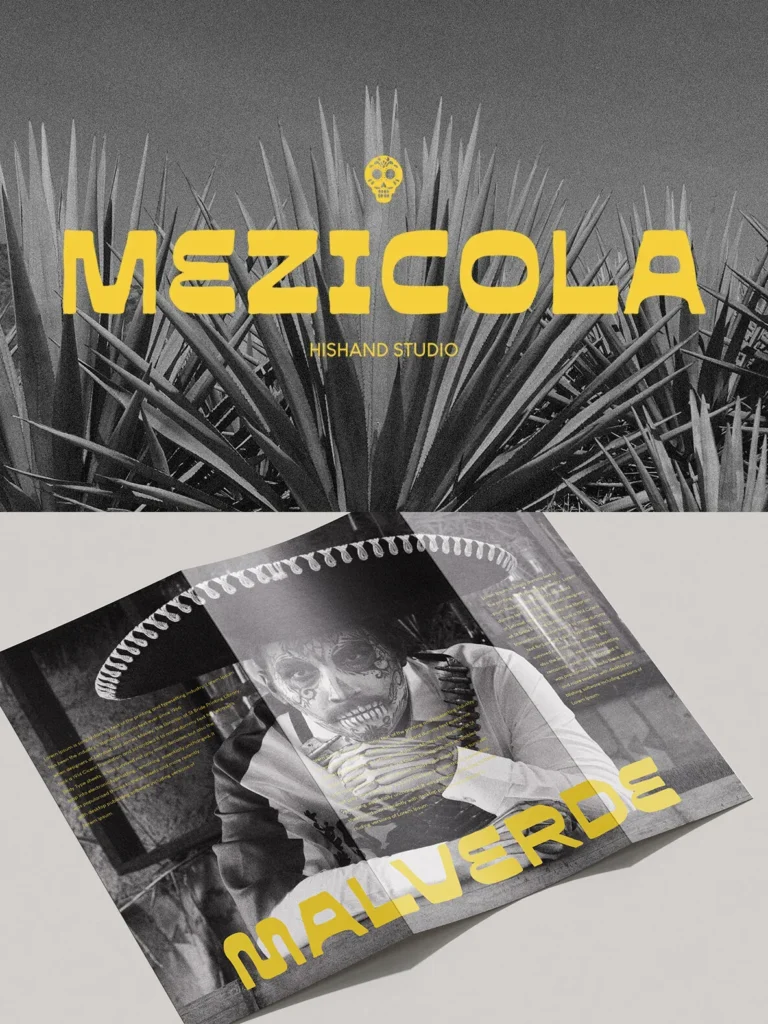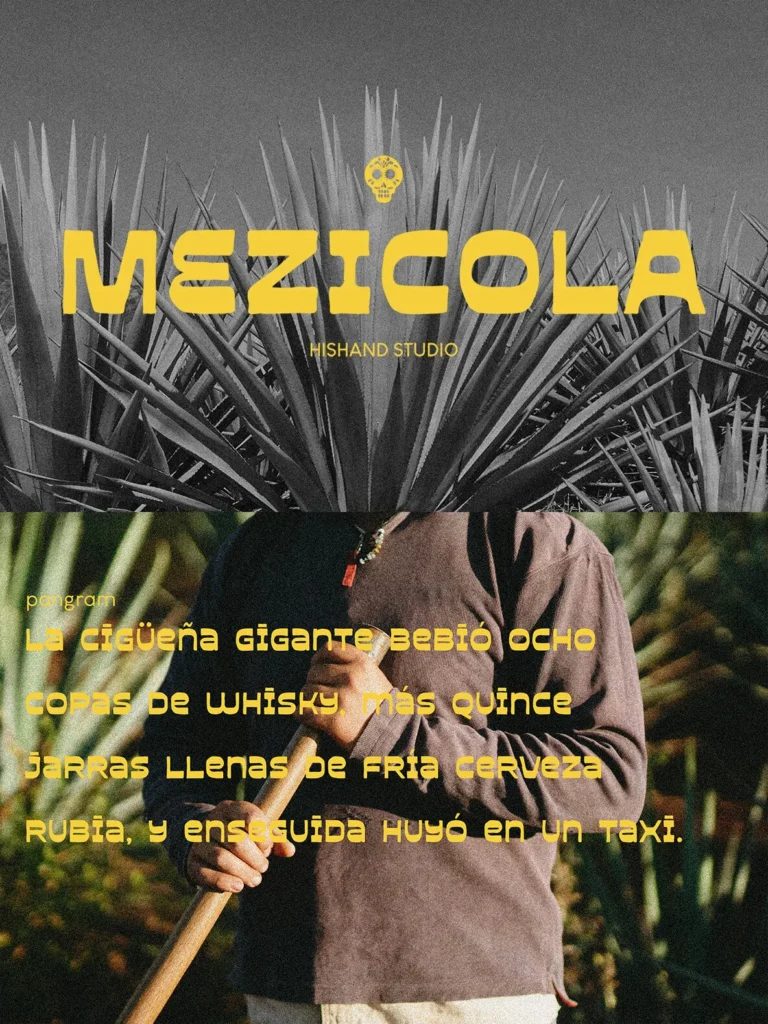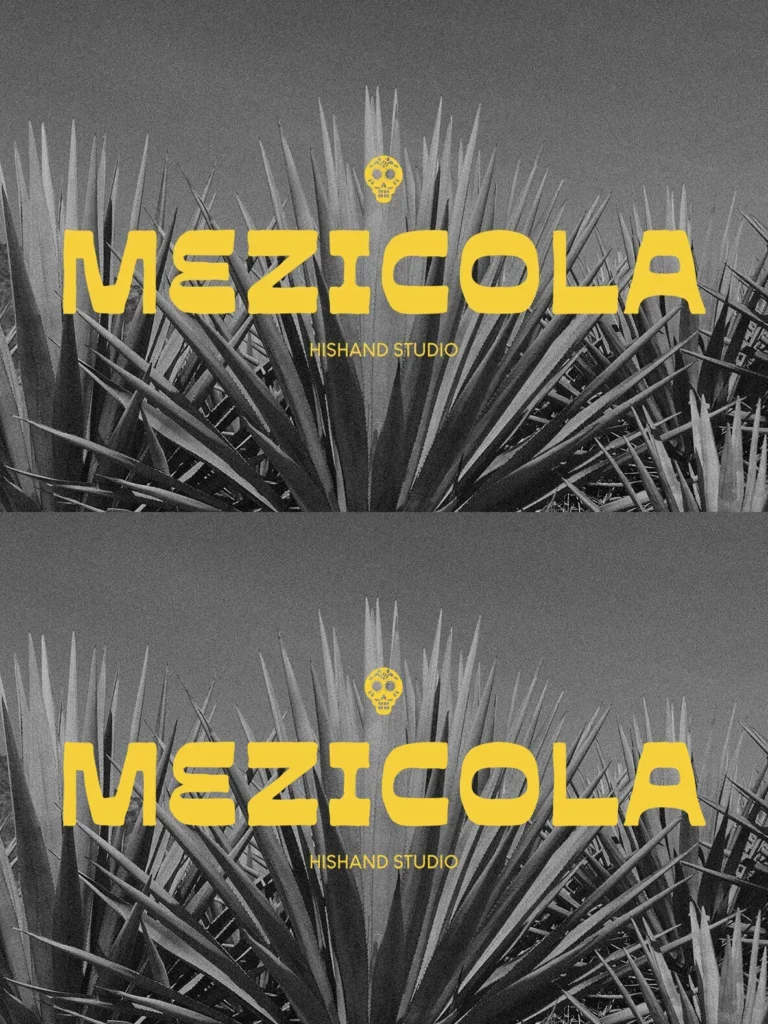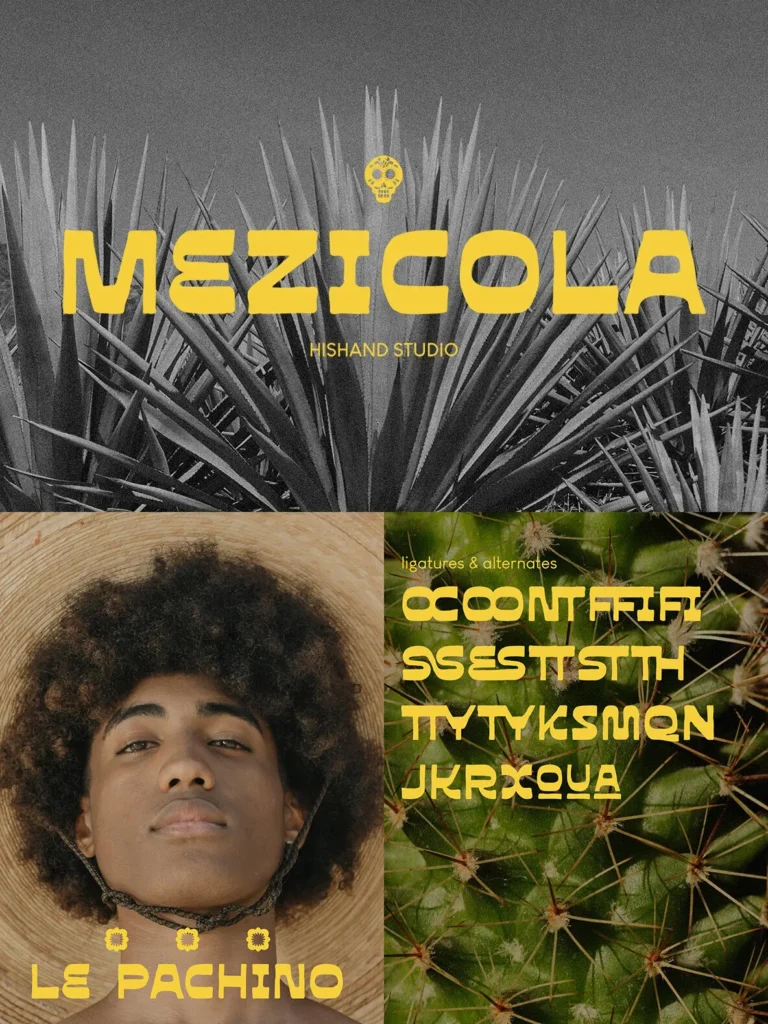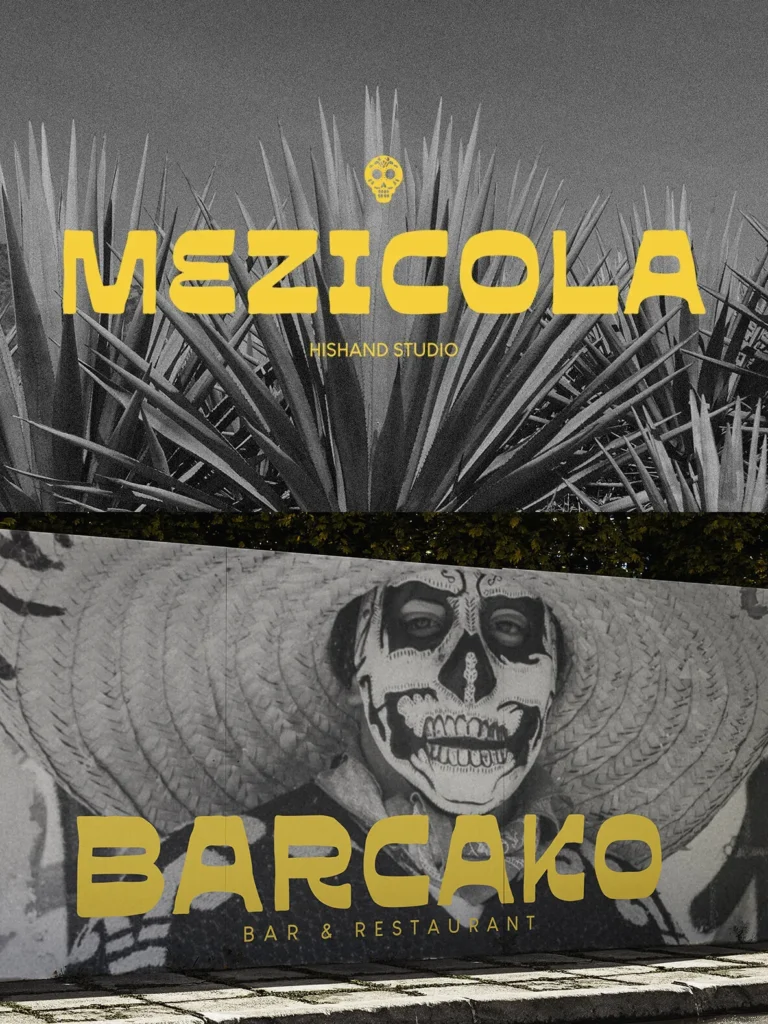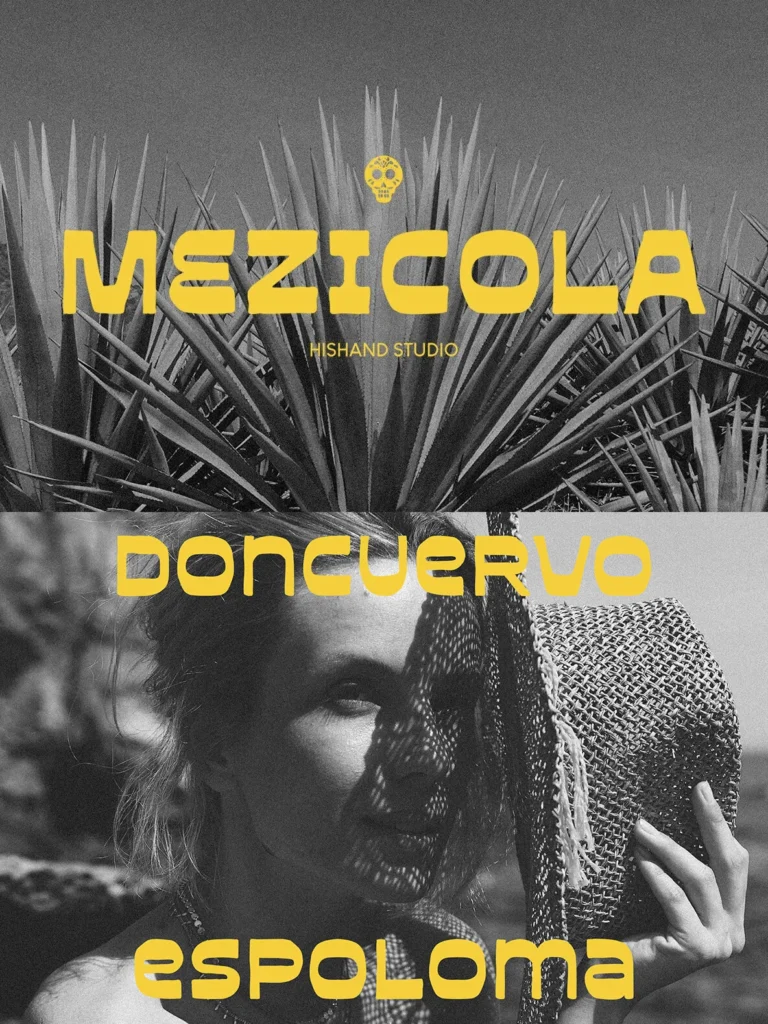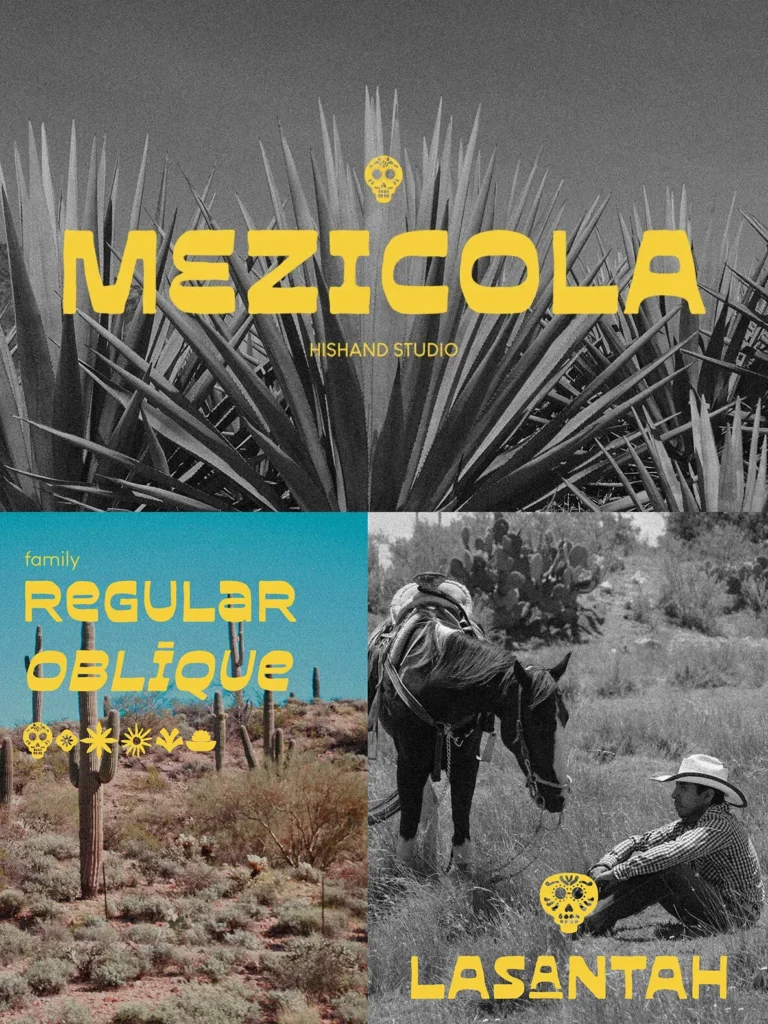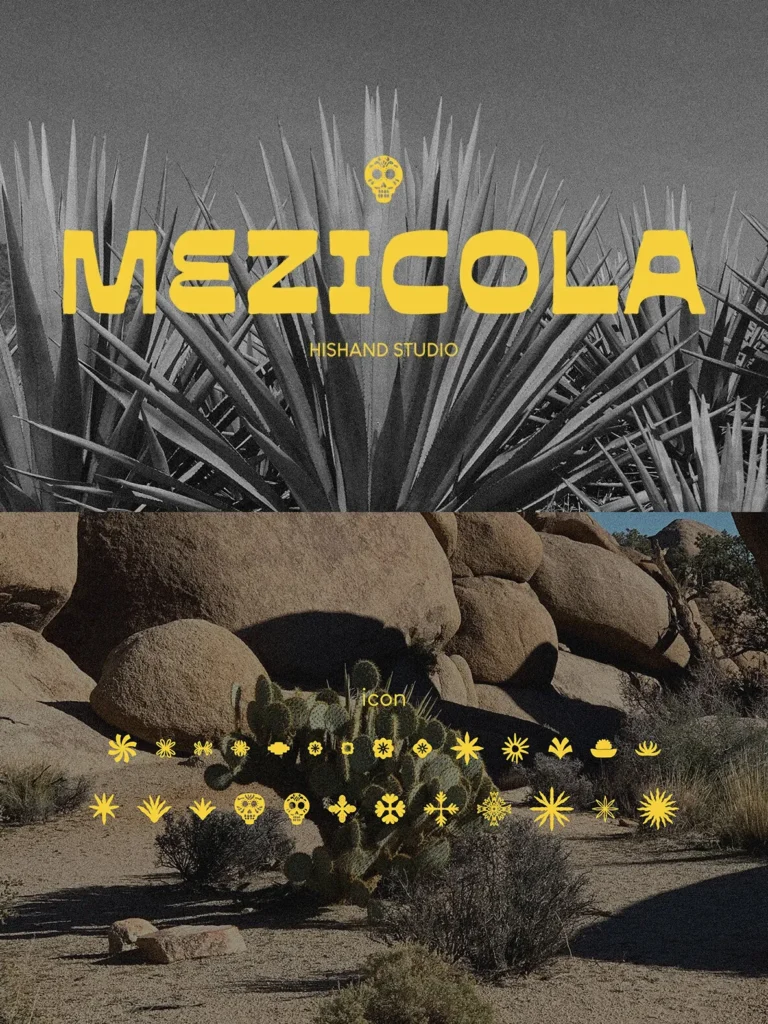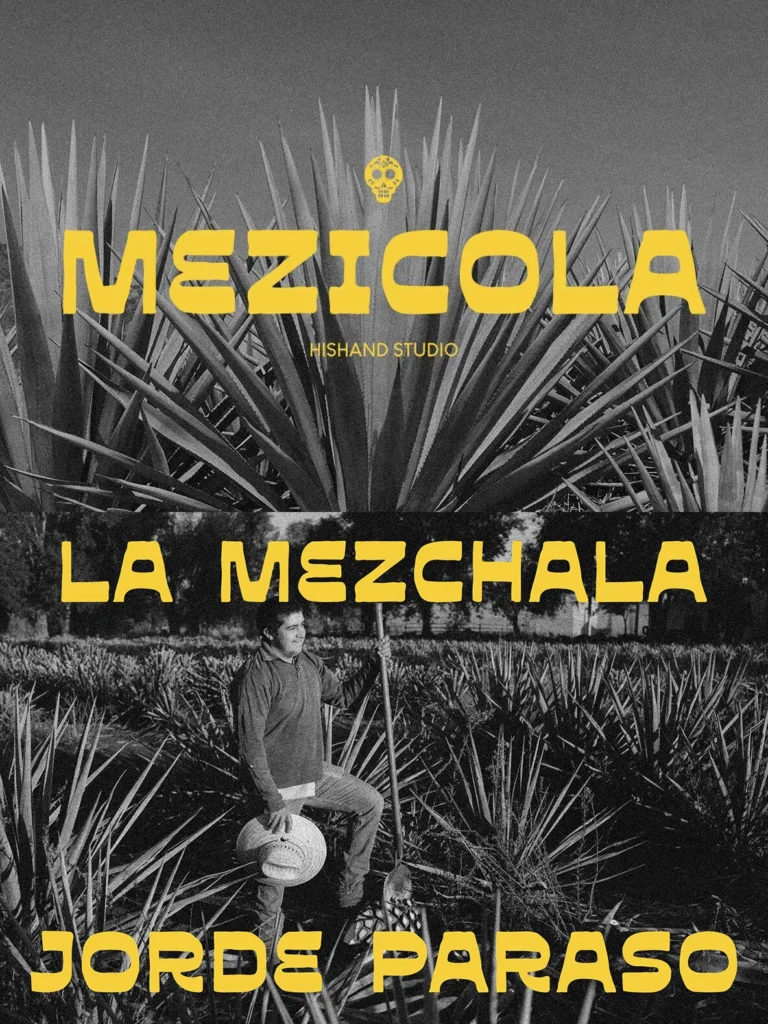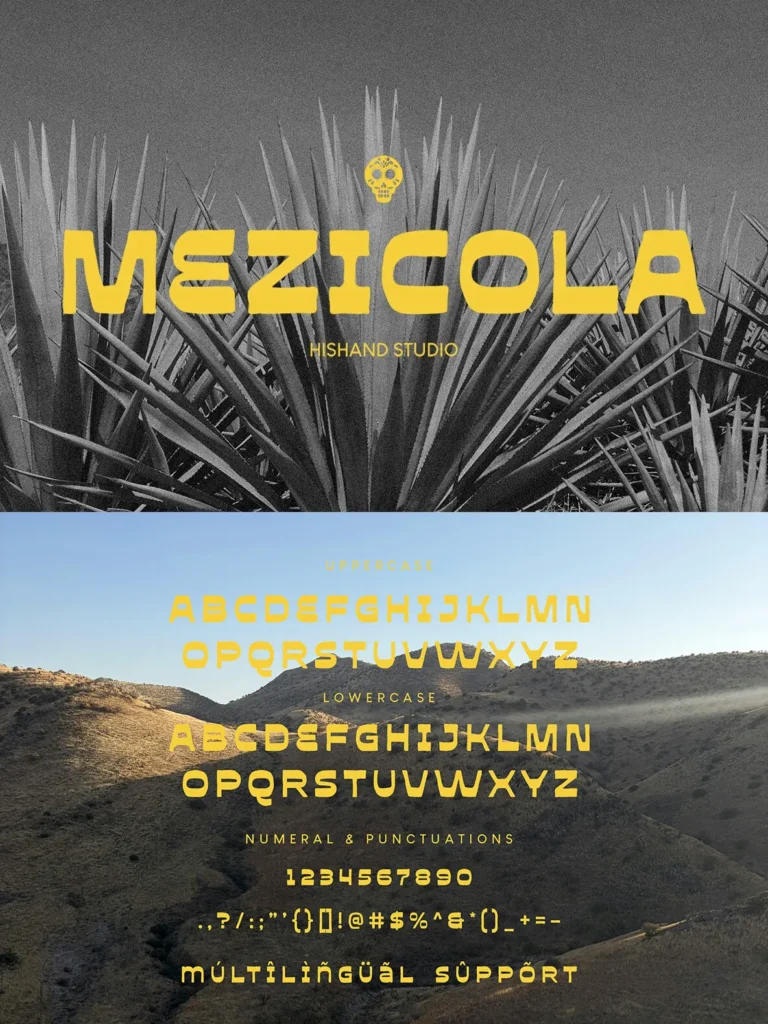
Mezicola — Heavy Signs, Hard Edges
Mezicola is a bold, heavy display font with immediate visual force. Inspired by old industrial signs and vintage graphic design, it uses thick, wide letterforms built to stand out in demanding layouts. Each character has a strong, blocky shape, with flat edges and even strokes that give the typeface a solid, powerful presence, almost as if it were stamped onto the page.
Despite its tough construction, Mezicola keeps a distinct character and charm, so it feels memorable rather than plain. It works best at large sizes on posters, album covers, logos, and magazine headlines where the typography needs to stop the viewer. Set over rough textures or warm earthy colors, Mezicola brings a gritty yet classic mood that feels both retro and modern.
Complete With
Ligatures
Alternates
Regular
Oblique
Icon
Kerning
Multilingual support